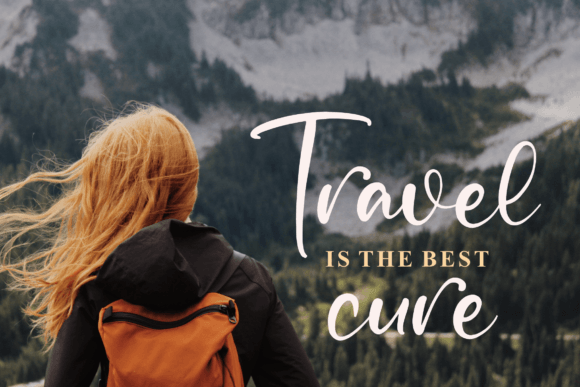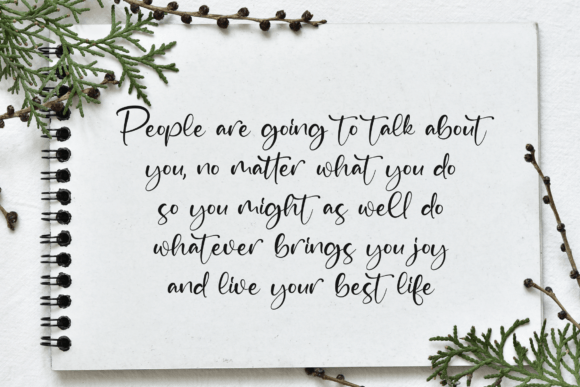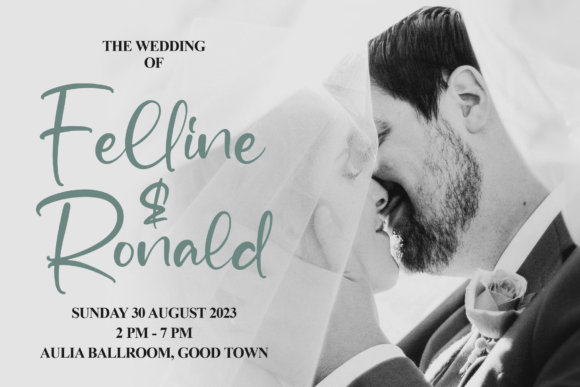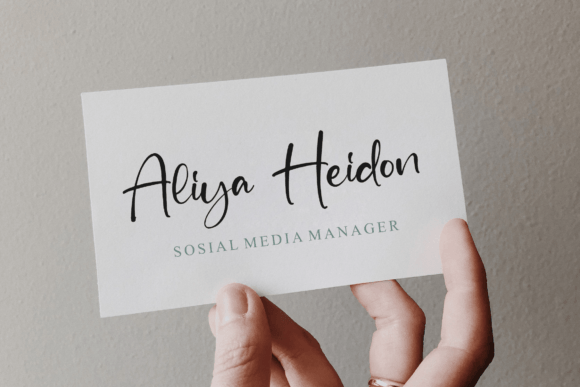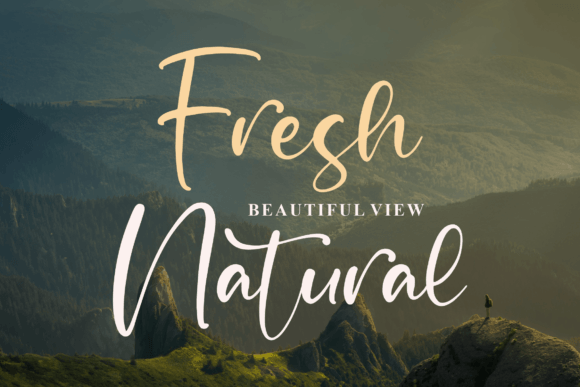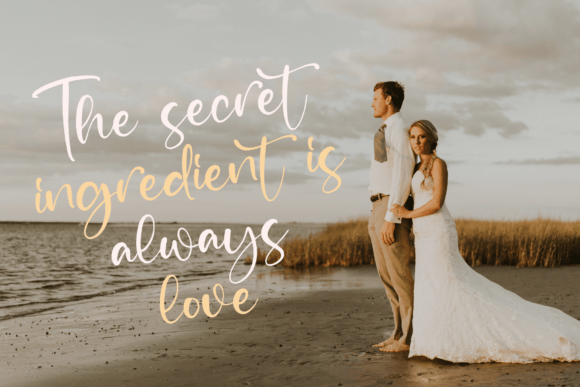
Unleash Your Creativity with Beautiful Script Fonts
Have you ever sat at your desk, staring at a blank canvas, waiting for inspiration to strike? That’s exactly where I was when I stumbled upon the Beautiful Gelista Font – a stunning script font that has been my go-to choice for any project that requires a touch of elegance.
Beautiful Gelista Font is a versatile script font designed to elevate any project, from logos and branding to homeware designs, product packaging, and even photography. Its beautiful, flowing lines and intricate details make it the perfect choice for designers who want to add a personal touch to their work.
For designers, Beautiful Gelista Font is a valuable asset that can help take their projects to the next level. With its wide range of applications, it’s the perfect addition to any designer’s toolkit – and it’s sure to leave a lasting impression on your clients and audience alike.
Key Features of Beautiful Gelista Font
- Unique Characteristics: The Beautiful Gelista Font features a unique, hand-drawn design with a whimsical and elegant feel, making it perfect for creating eye-catching and sophisticated designs.
Beautiful Gelista Font Review
Overall, I’m quite pleased with the Beautiful Gelista Font. It’s a versatile, elegant script font that’s perfect for adding a touch of sophistication to your designs. ✨ The flowing connections and subtle flair at the ends of each letter make it a great choice for titles, headings, and other prominent text elements.
The font’s aesthetic is highly customizable, allowing you to adjust the color, size, and style to suit your project’s needs. ✨ It also pairs well with a variety of other fonts, making it a great addition to your design toolkit.
- ⚠️ The font may not be suitable for large blocks of text, as the script style can be difficult to read in extended passages.
- ⚠️ Some characters, such as numbers and punctuation, may not be as well-designed as the letters, which can create visual inconsistencies in your design.
In conclusion, the Beautiful Gelista Font is a great choice for designers looking to add a touch of elegance to their work. While it may have some limitations, its versatility and customizability make it a valuable addition to any design arsenal.
For best results, use the Beautiful Gelista font for titles and headings to add a touch of elegance and sophistication.
Combine it with other elegant fonts for a balanced look.
Experiment with different font sizes and styles to create a unique visual effect.
The Beautiful Gelista font is ideal for:
Formal business reports and presentations
Magazine and book titles
Any design that requires a touch of sophistication and elegance
Alternatives to Beautiful Gelista Font for Designers
Playfair Display is a luxurious, high-end serif font ideal for use in headings, titles, and other prominent text elements. Its elegance and sophistication make it suitable for fashion, luxury, and high-end branding projects. When to use: headings, titles, luxury branding.
Comparison: While Beautiful Gelista Font has a similar elegant feel, Playfair Display is more refined and sophisticated, making it a better choice for high-end projects.